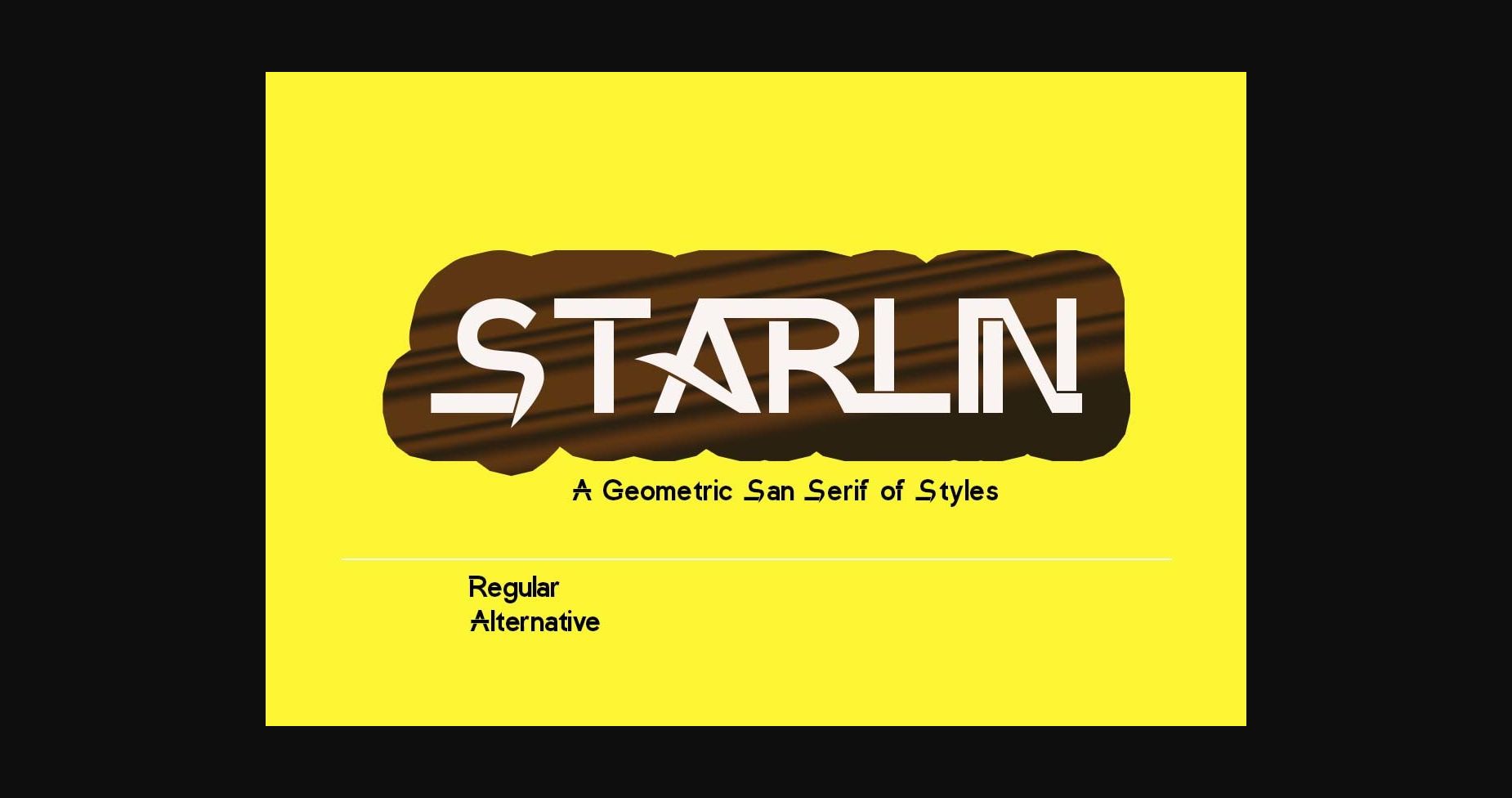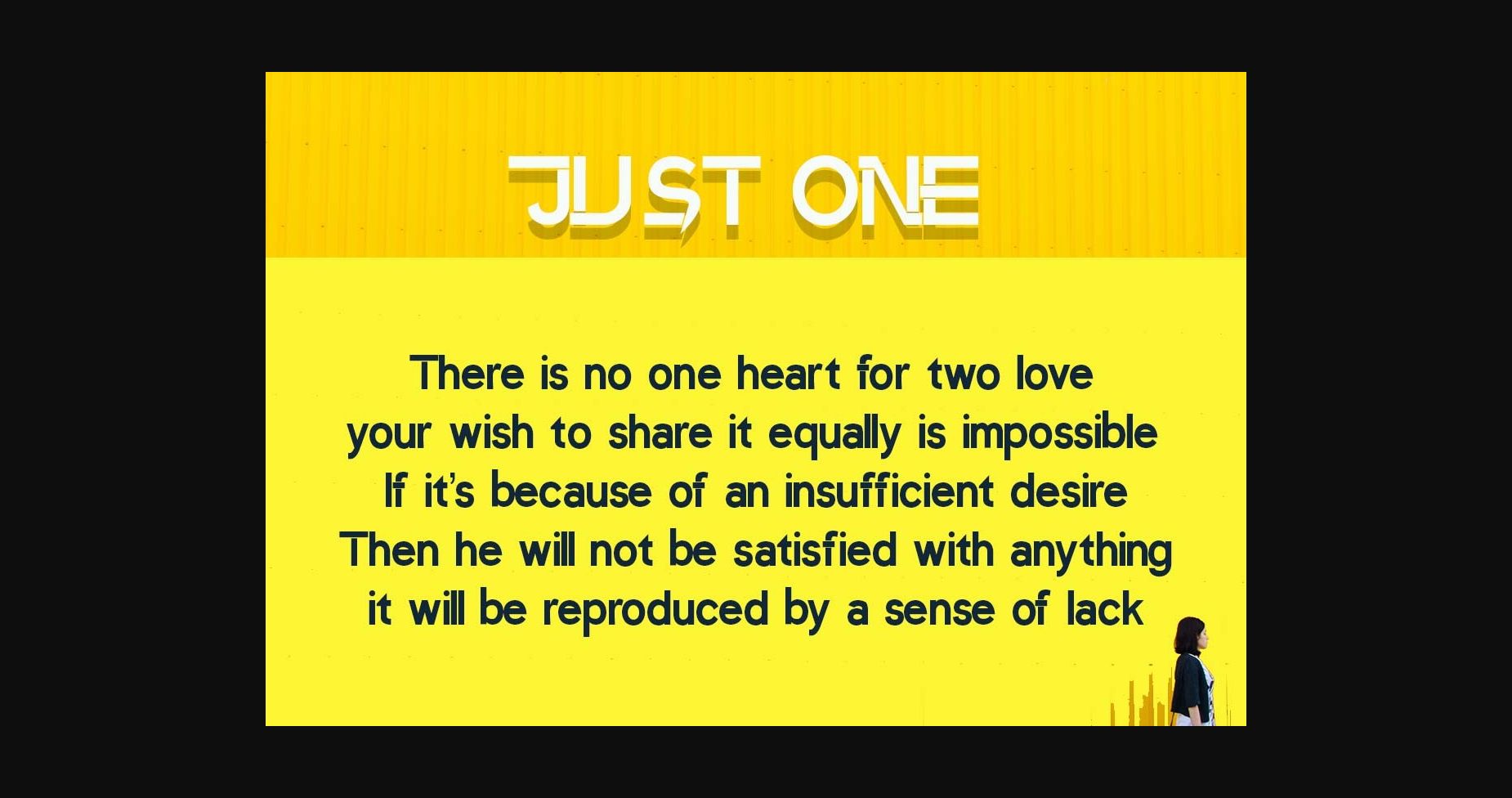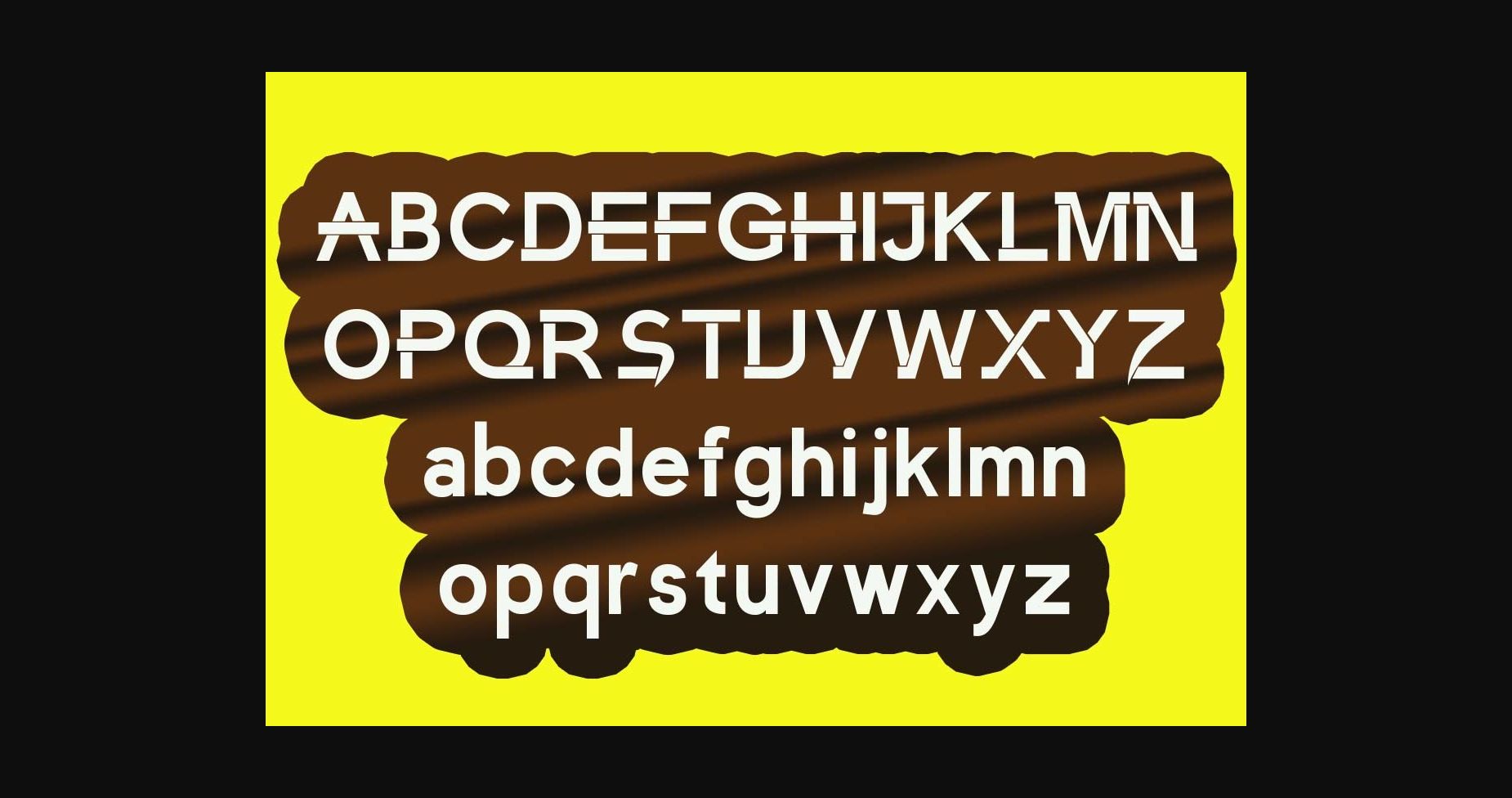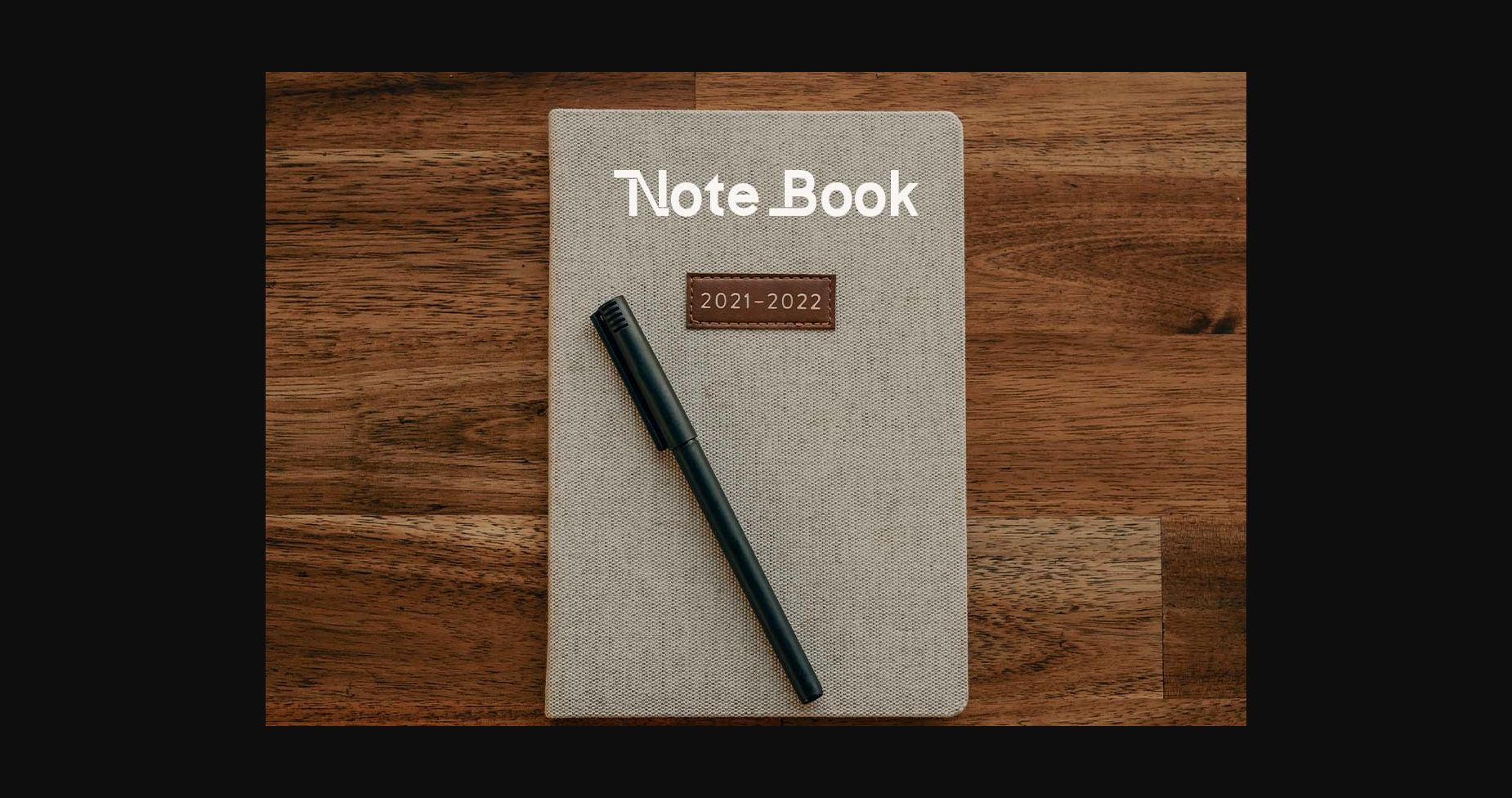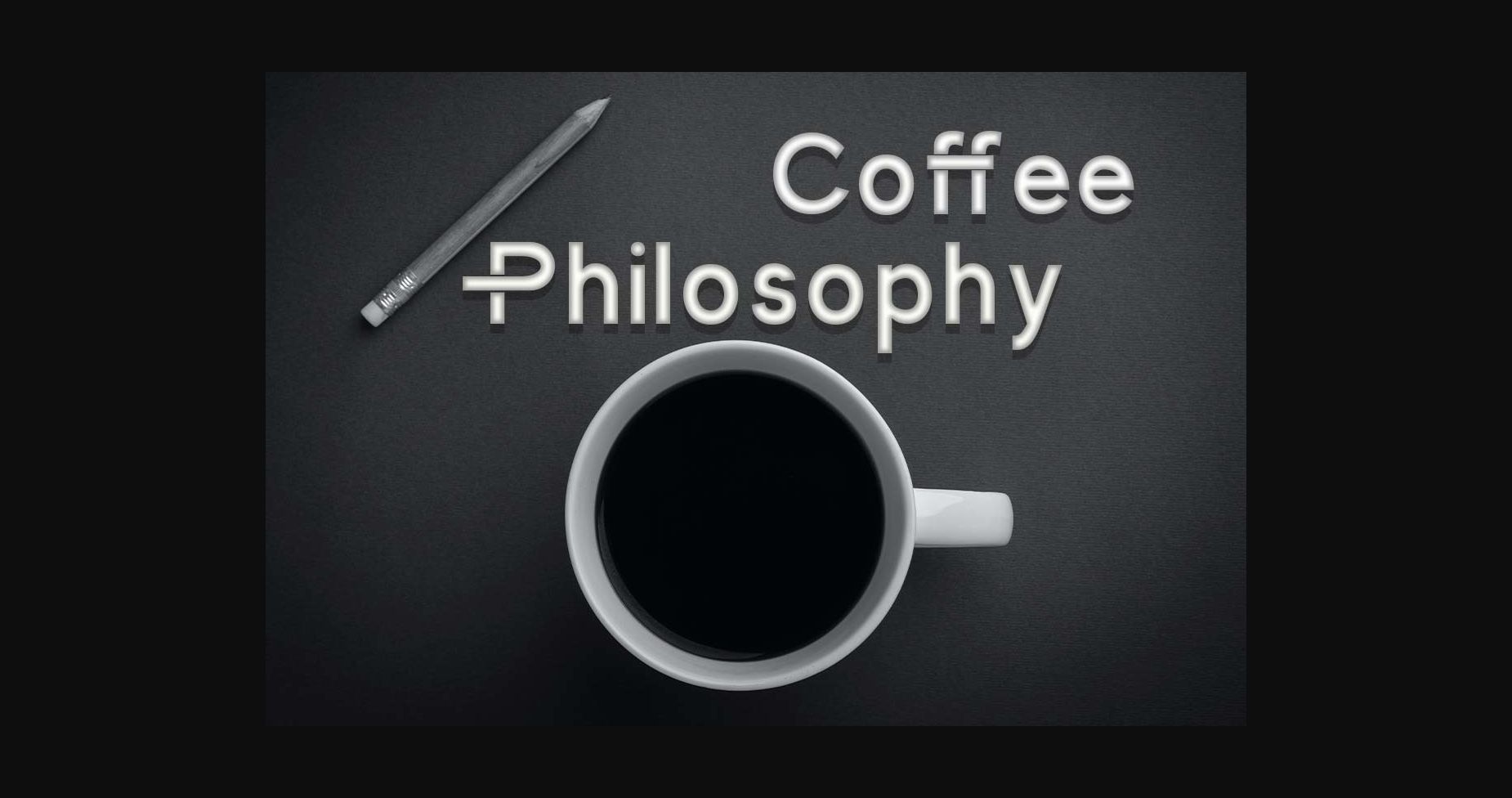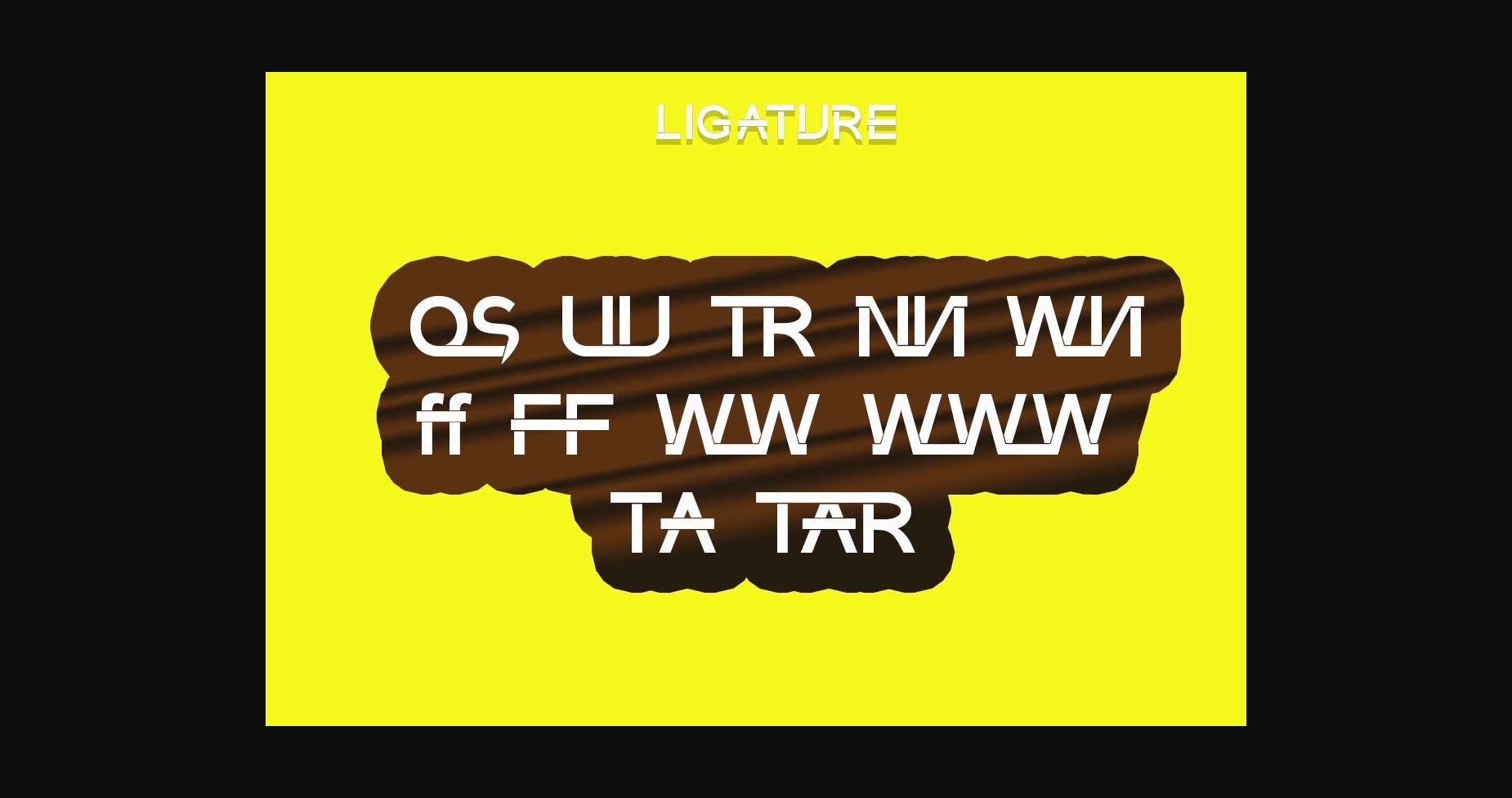
Starlin Font
About Starlin Font
Starlin is a beautiful and unique sans serif font. As an expert to become a true favorite, this font has the potential to take your creative ideas to the highest level! Add it to one of your creative projects, and it will make it stand out!